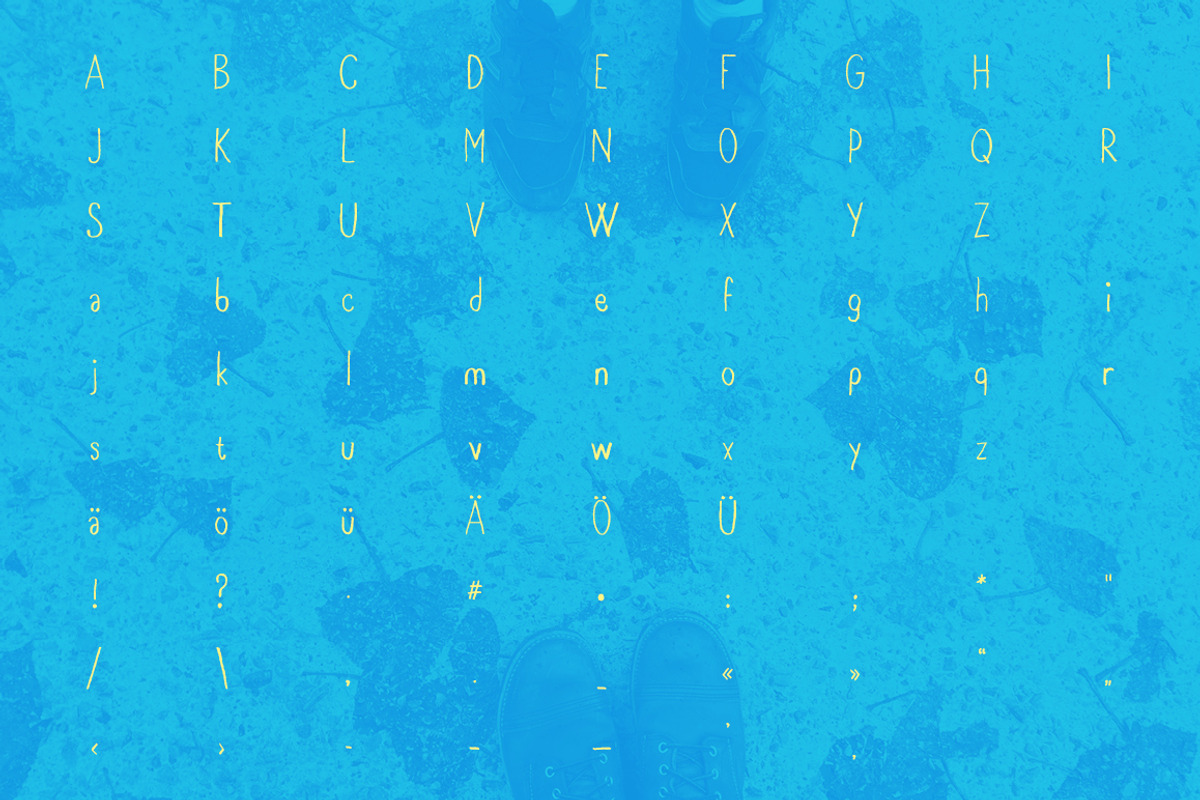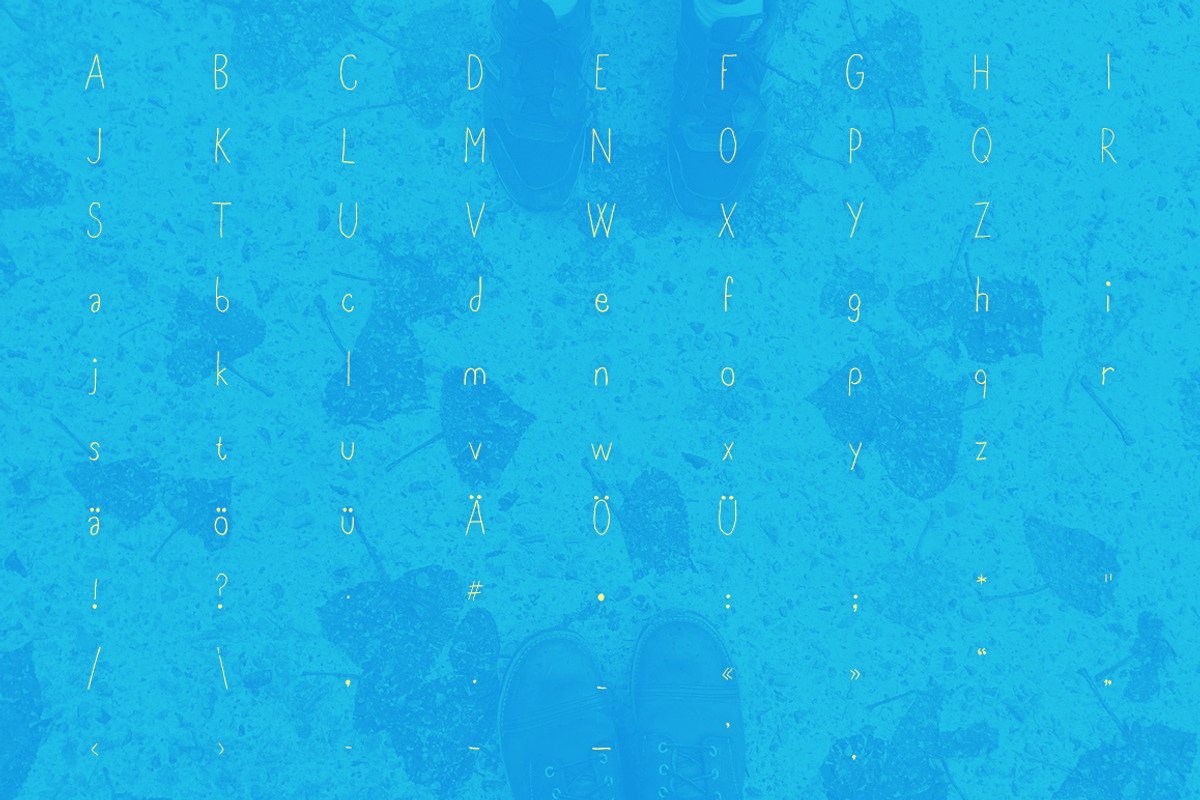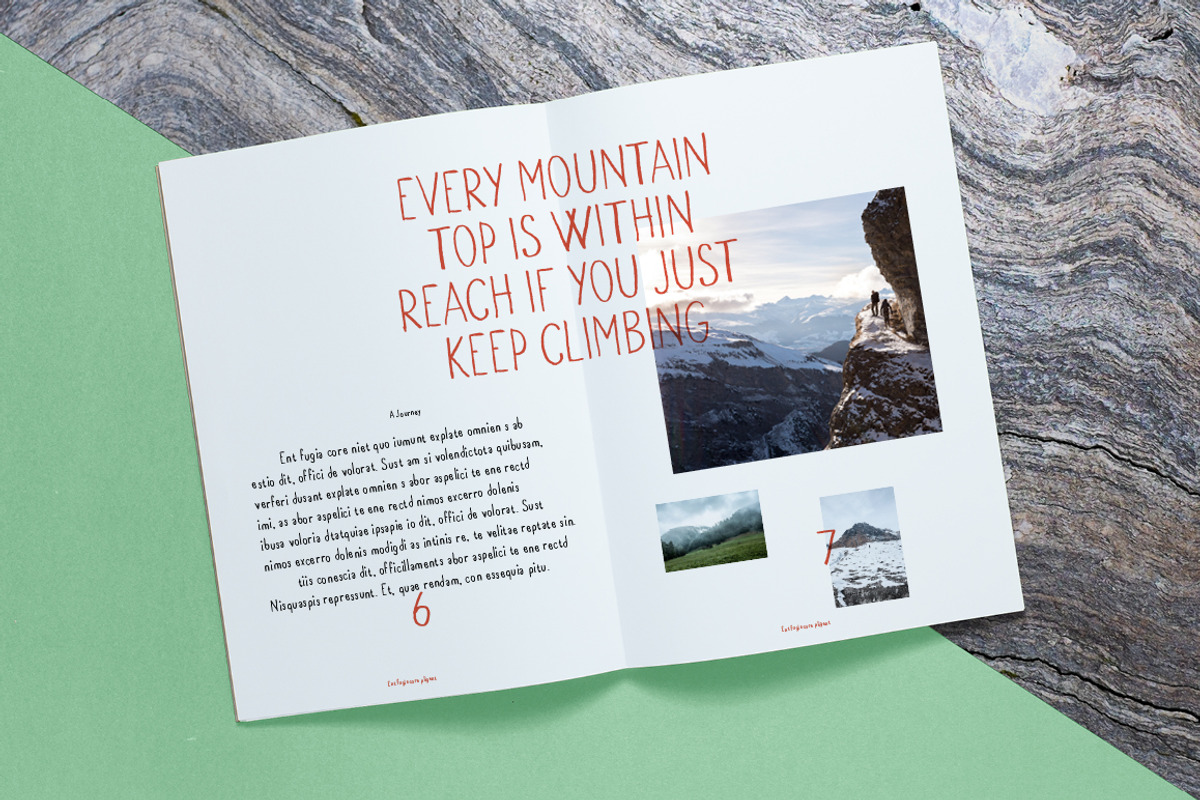
Zick Zack Condense – Regular & Light
Introducing: Zick Zack is a handwritten font in regular and light, which looks great in every context, like branding, wedding cards, retro logos, baby cards and many more. Just check out the product pictures above.
- Special Characters